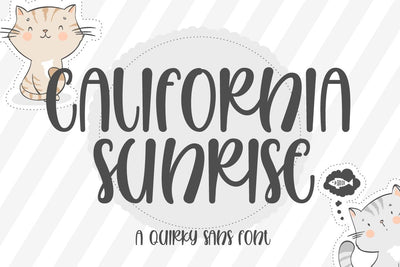
California Sunrise - a Quirky Handwritten Font
Introducing of our new product the name is California Sunrise a Quirky Handwritten Font. California Sunrise inspired by modern calligraphy this font is a fun theme very good for Calligraphy sans , poster, food, wedding, branding etc